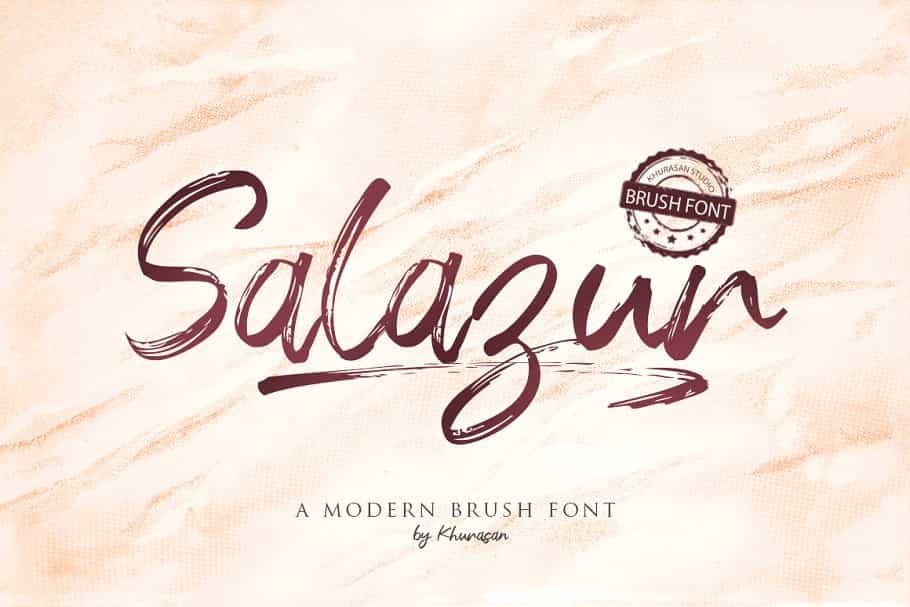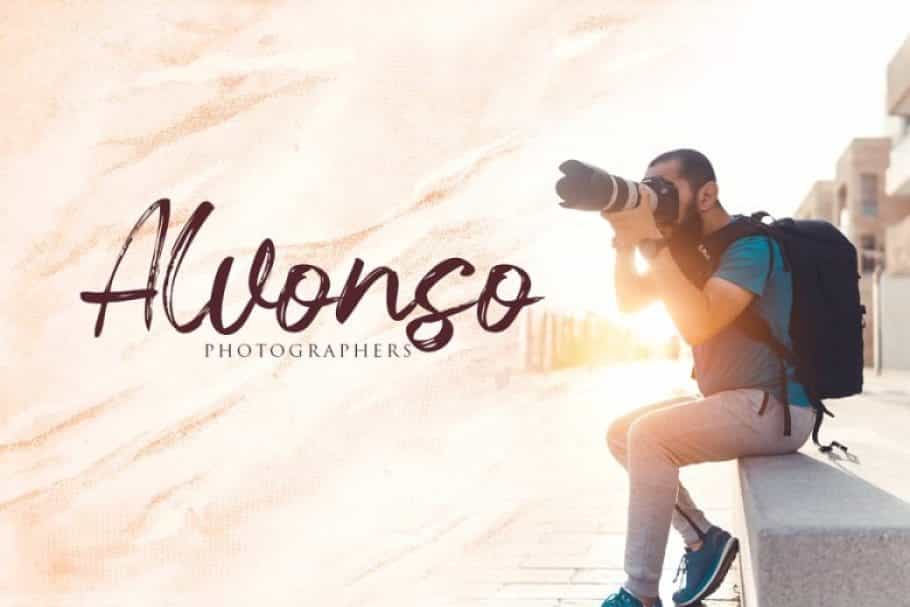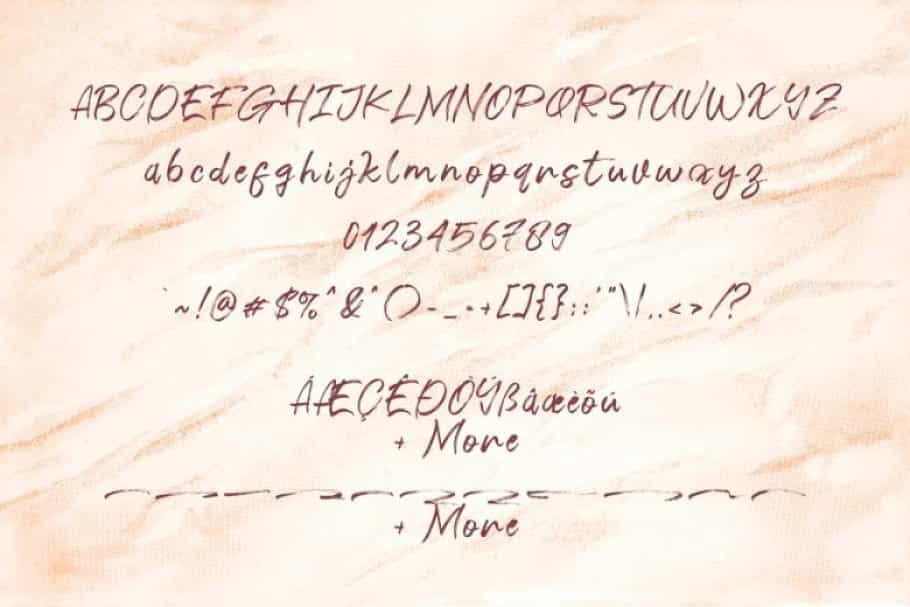
Salazur is a new script font of modern style, it is the set of characters that give an elegant and modern feel. Salazur font is a full set of capital and lowercase letters, plus multi-lingual support, swashes, numerals & punctuation.